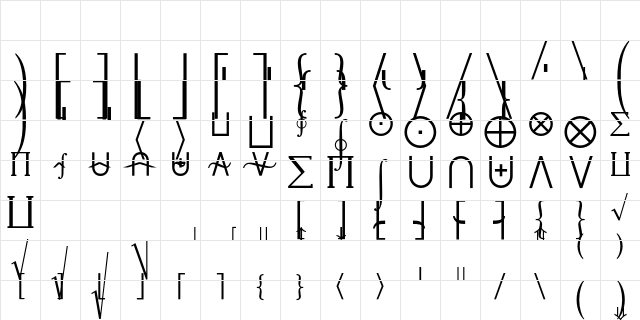
Lucida Math Extension
Design Context for Lucida Math Typeface
Lucida Math is a composed and adaptable typeface that performs quietly and consistently across a wide range of design contexts.